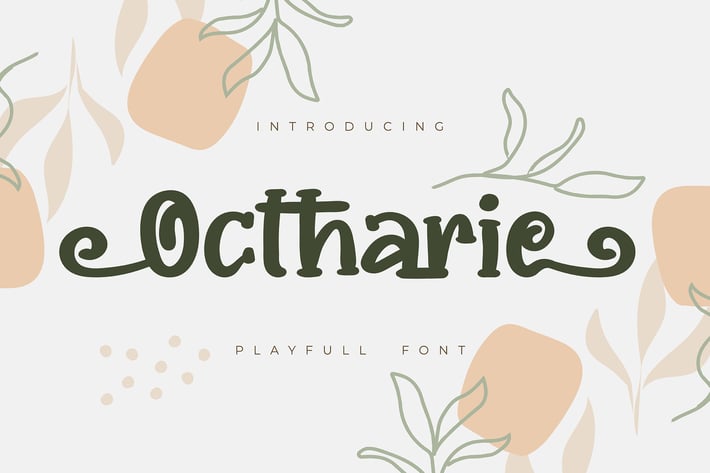
Ochtarie | Playfull Font
Ochtarie | Playfull Font with a calligraphy style, So beautiful on invitation like greeting cards, branding materials, business cards, quotes, posters, and more!